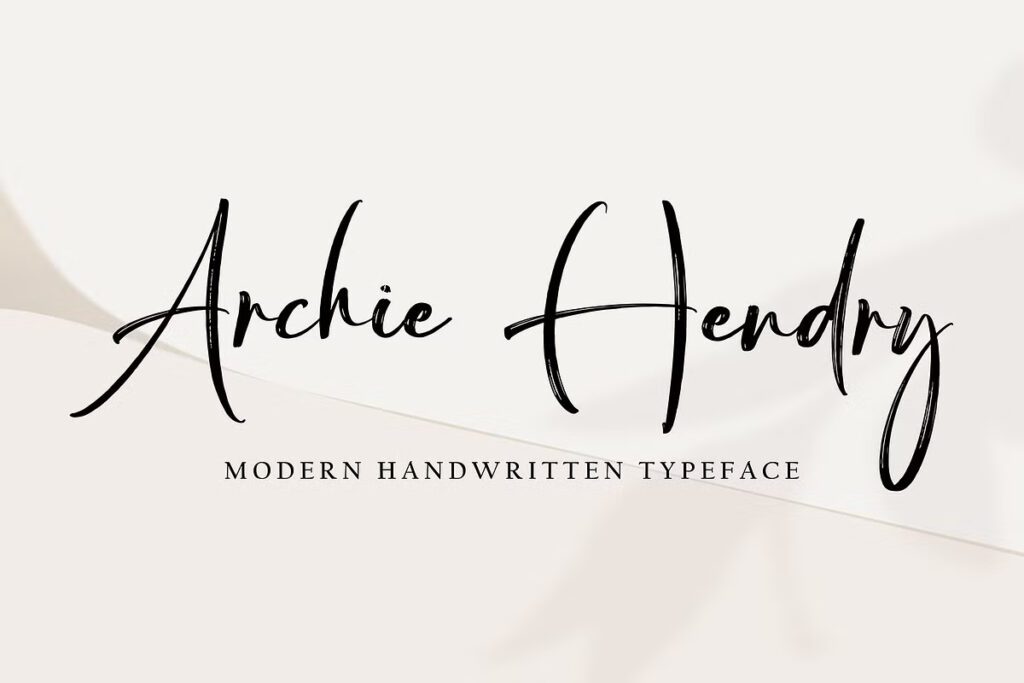
Who makes it, and how it is described
Archie Hendry comes from HaKi Studio, a Creative Market shop with a large catalogue of fonts named after people, such as Aston Stirling, Ashley Graham and Arnold Forest. The listings we looked at were all priced at $15, and Archie Hendry was added on the same day as many of them.
Creative Market files Archie Hendry under Fonts > Handwritten. HaKi Studio’s description is brief: it presents the font “with new style” and suggests it for quotes, logos, blog headers, posters, branding, letters, invitations and stationery. Earlier listing text for the font called it a modern font for logos, blog headers and business cards.
The listing does not mention weights, ligatures, alternates or a language list, and it had no buyer reviews when we checked. Type your own words into the Creative Market preview before buying, especially names with accents.
Where a modern handwritten font earns its place
- Business cards and personal brands: a name or signature line, with contact details in a plain sans.
- Blog and YouTube headers: one or two words over a photo.
- Quote graphics: the quote in the handwritten font, the author in small caps of a simple sans.
- Stationery and invitations: names and headings, not the full text.
Handwritten fonts lose legibility at small sizes and in long runs of text, so keep Archie Hendry to short lines. For the supporting text, Montserrat or Lato are free and neutral enough not to clash.